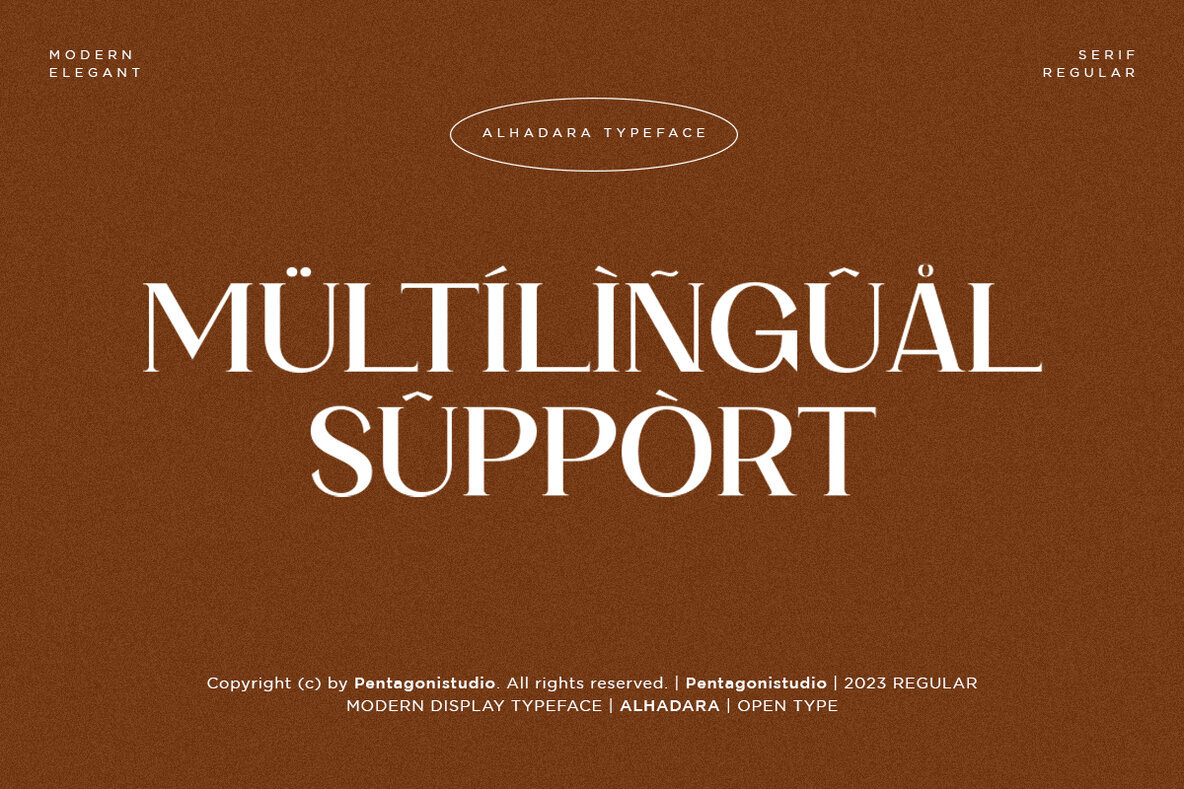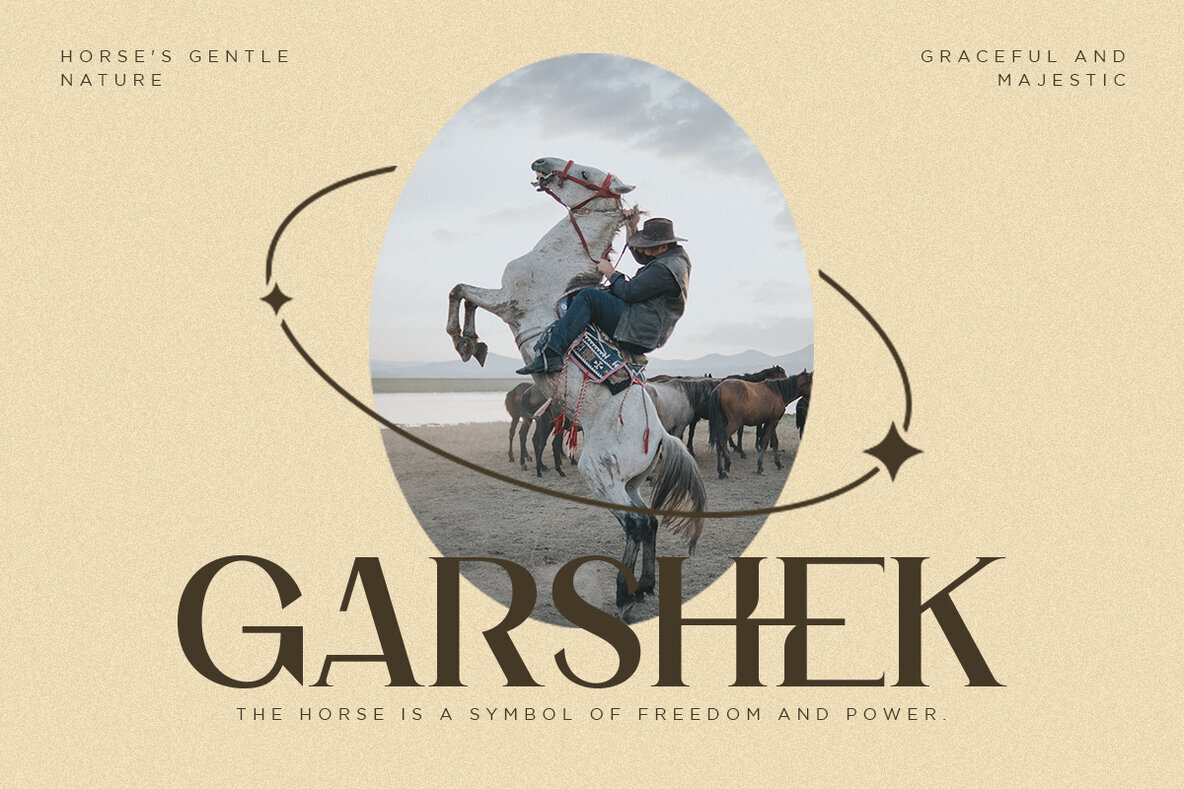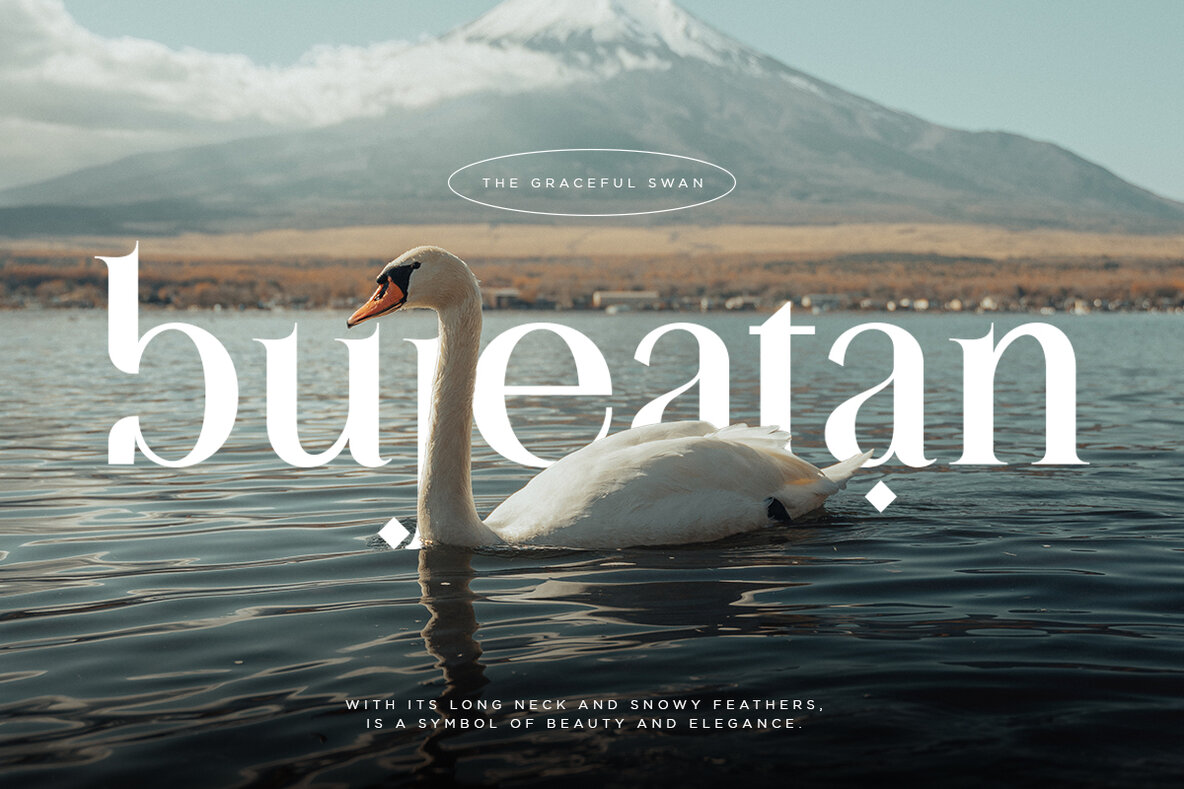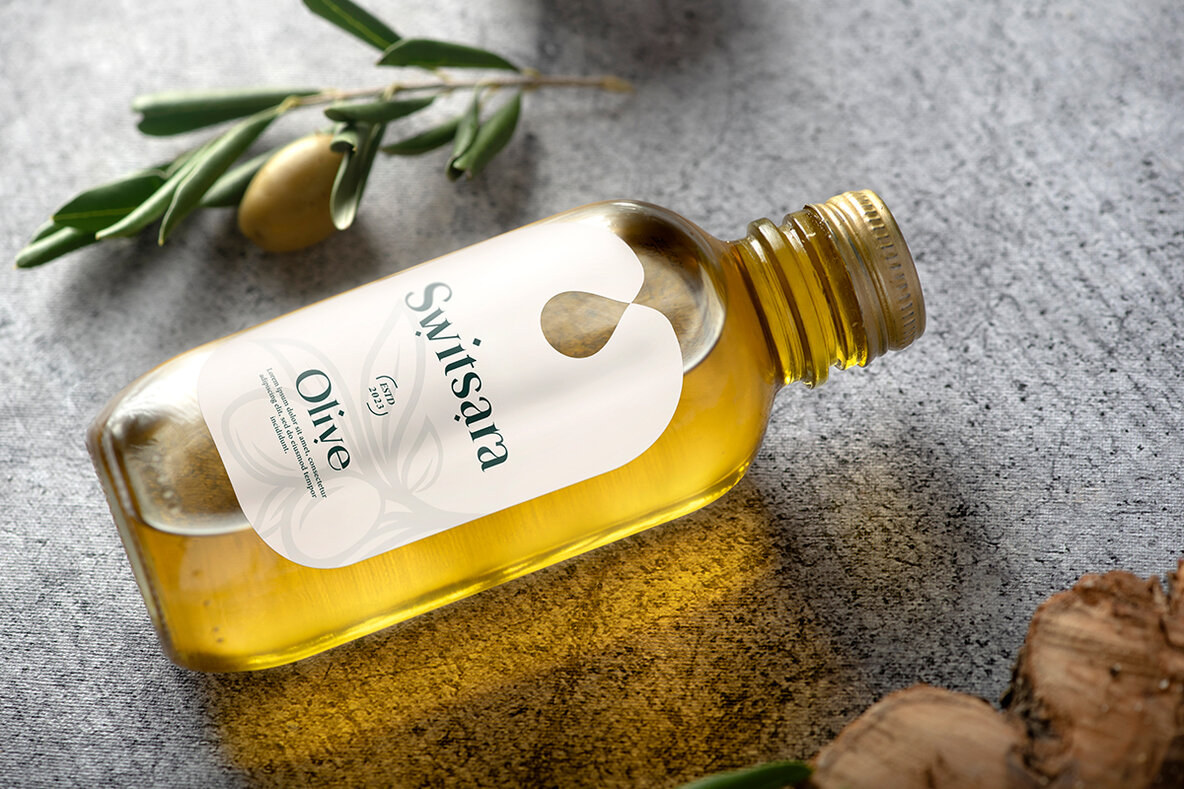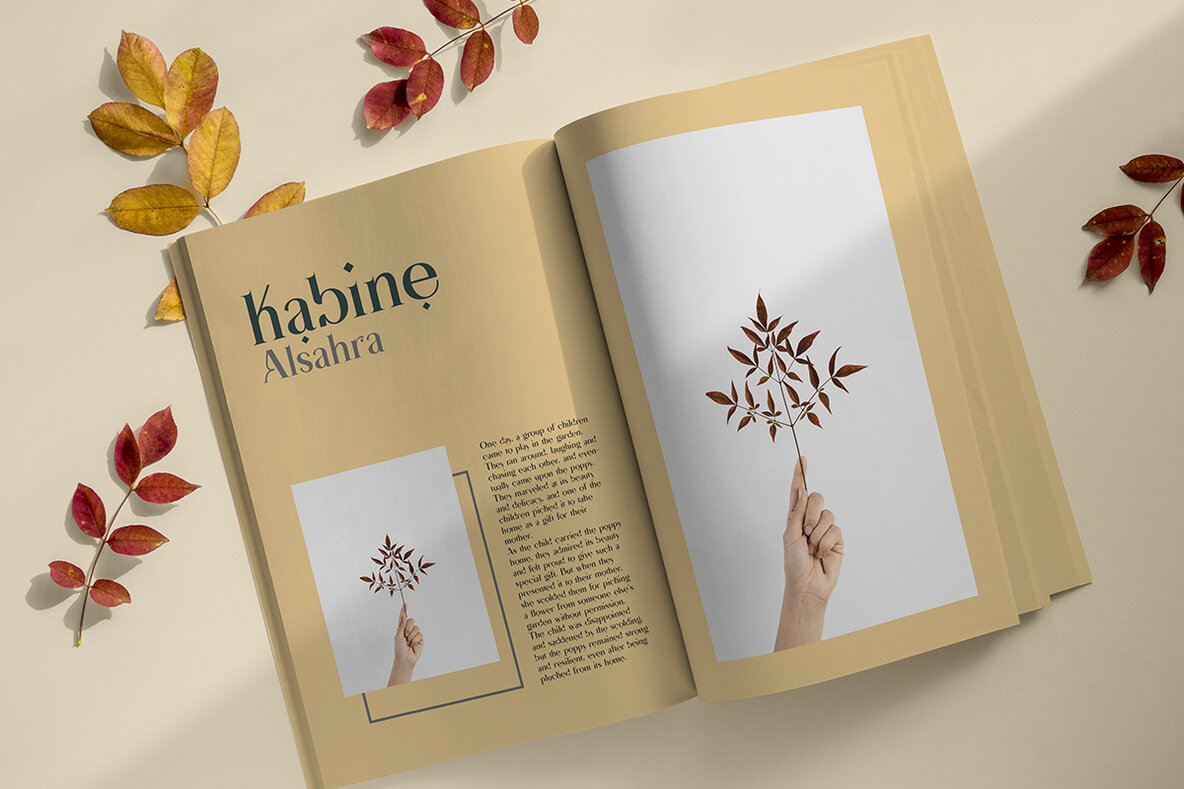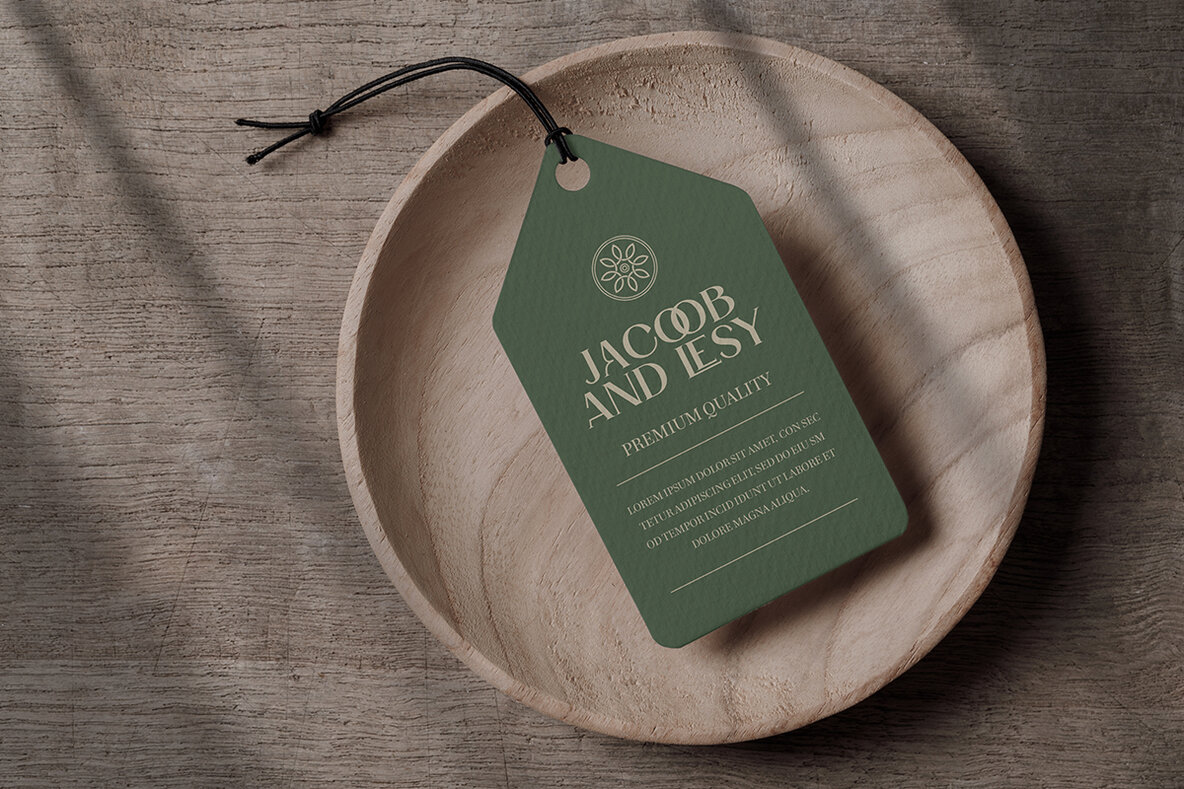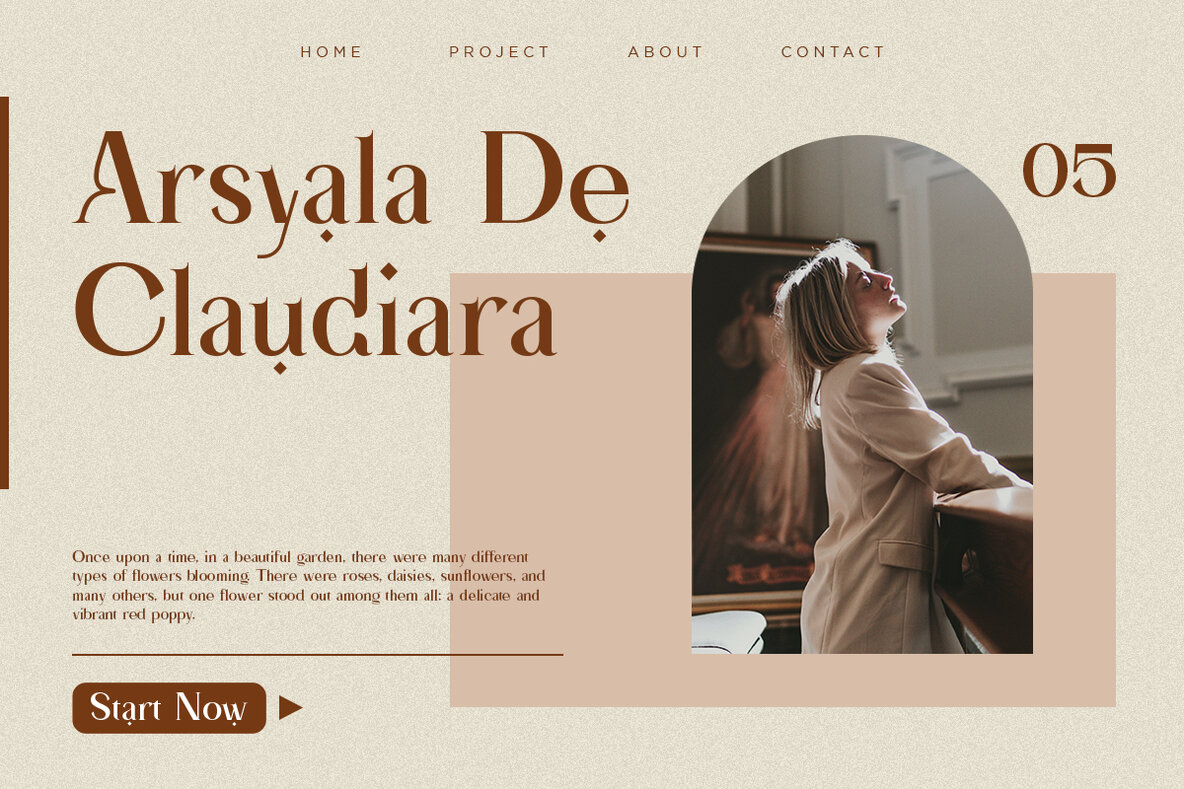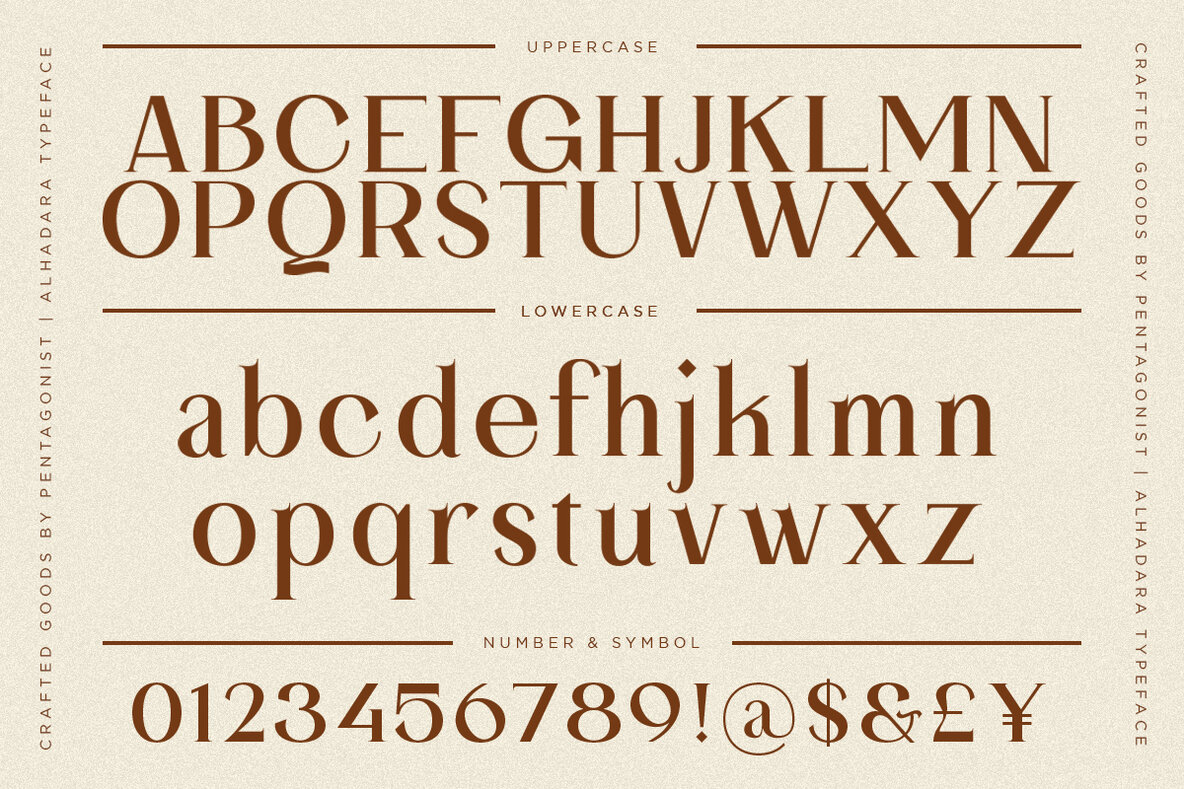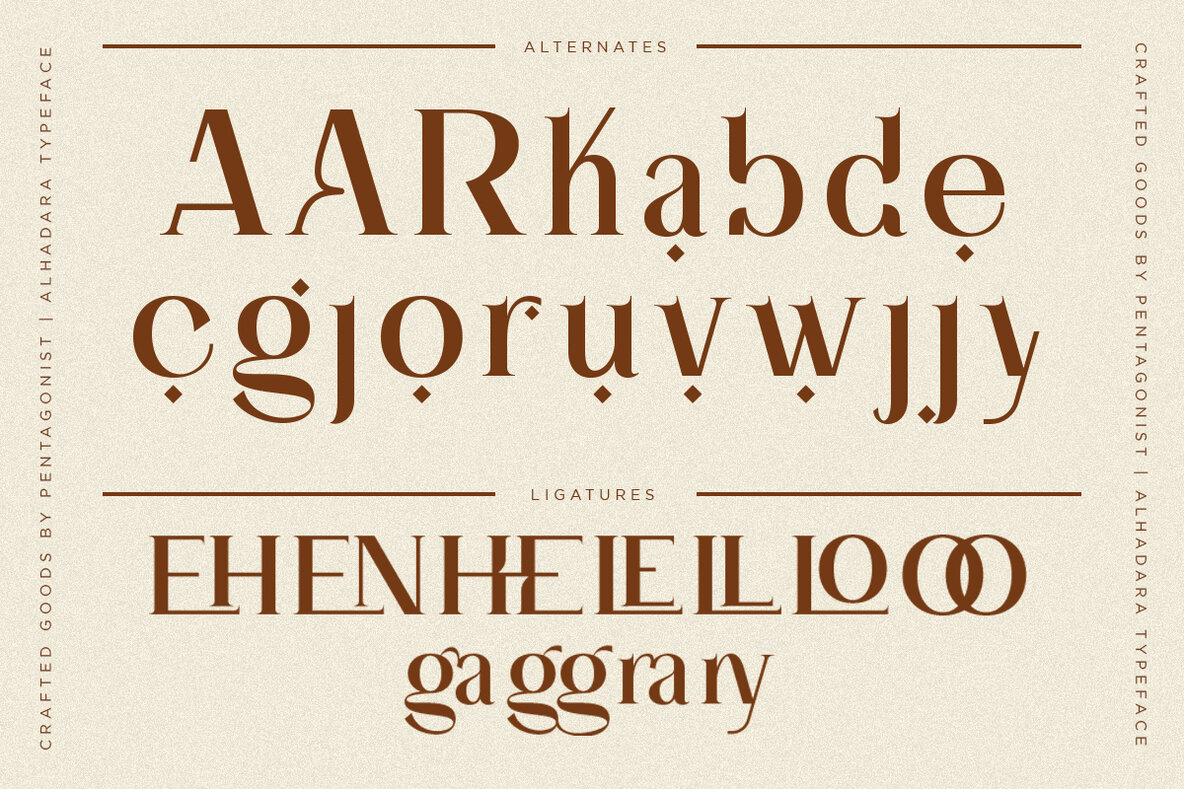
Alhadara Font
Alhadara Regular
Alhadara is a sophisticated modern serif font featuring stylistic alternates and ligatures, designed to bring a unique flair to any project. Alhadara includes a desktop license for installation on one user across two computers. It is not permitted for use in broadcast, cinema, or as embedded font files within apps, games, or e-pubs. Also, it cannot be resold or used in templates for sale or free distribution. The font and its alternates do not require special software and can be used in any basic program or website app that supports standard fonts. Follow our shop for updates, including additional glyphs and language support. Feel free to contact us if you want your language included or have specific feature or glyph requests. Have a great day!Alhadara: A Modern Serif with Stylistic Elegance